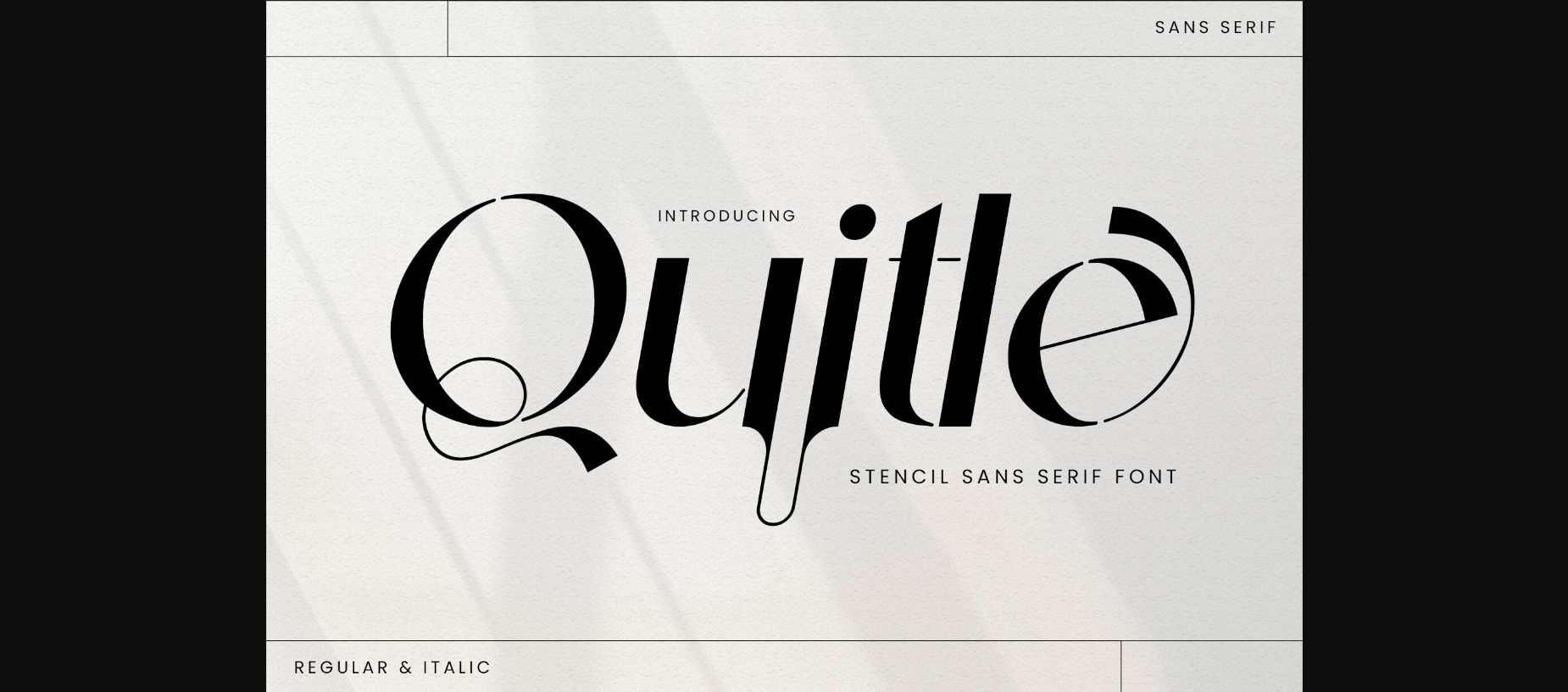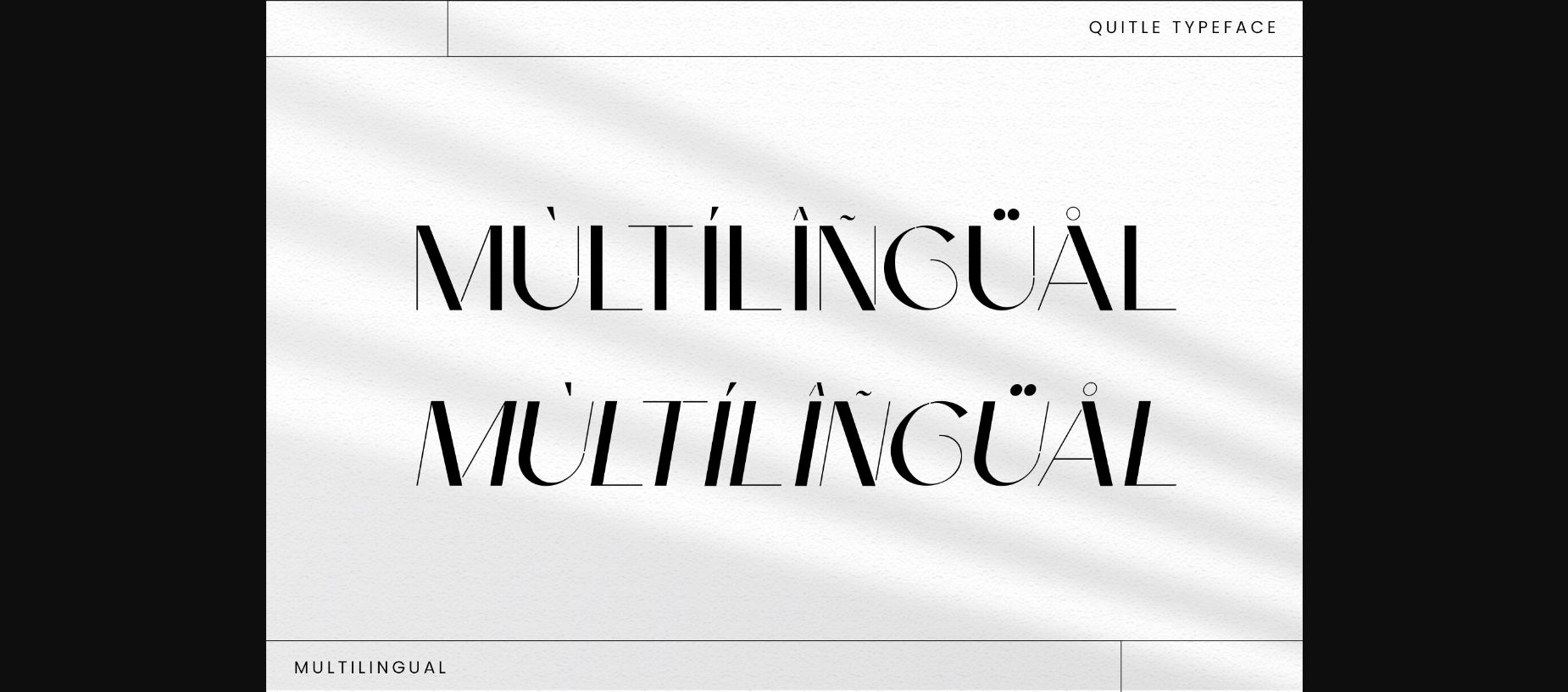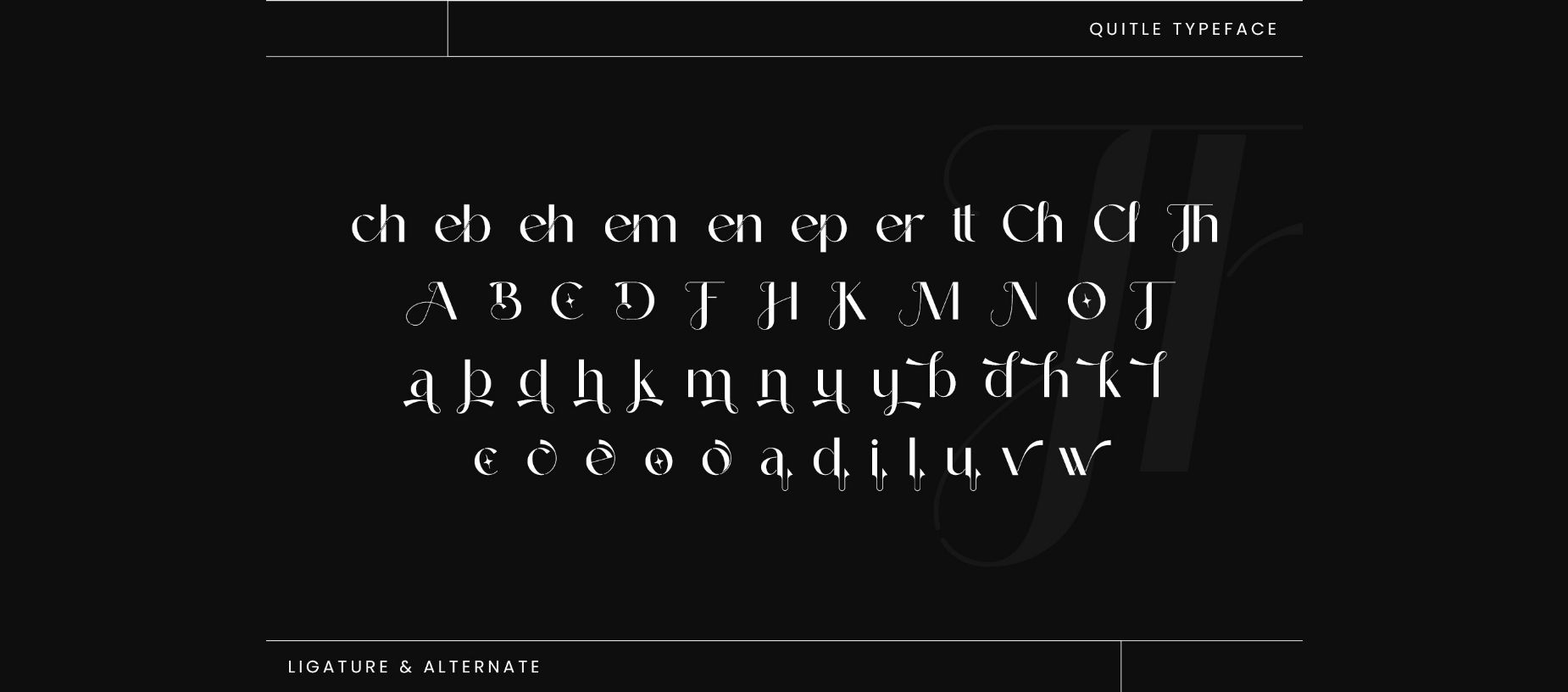
About Quitle Font
Quitle Sans Serif is an elegant and smooth combined typeface of regular and italic sans serif font. It has a beautiful character. It fits perfectly with invitation card designs, company logos, movie titles, movie names, business cards, book titles, brand names and various other designs. Quitle Sans Serif is a subtle sans serif font that exudes sophistication and elegance. Its stylish alternations and ligatures make this font the perfect partner for any project.